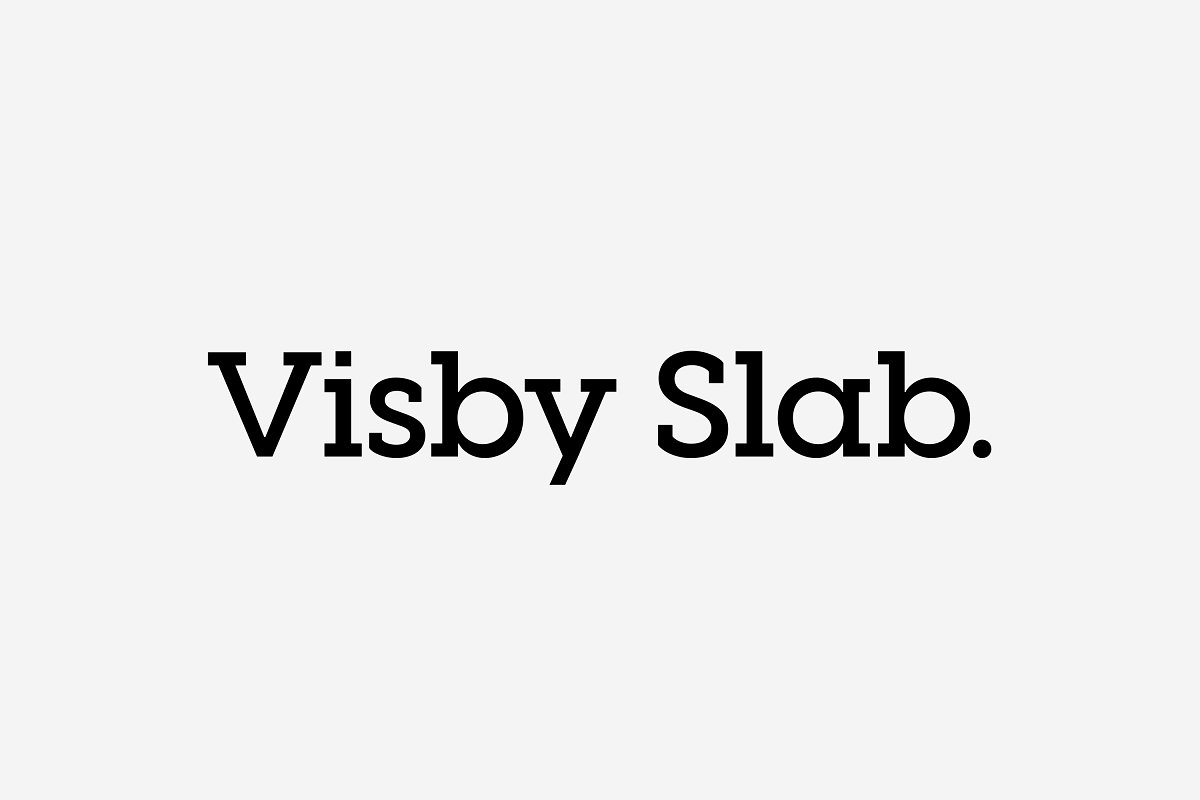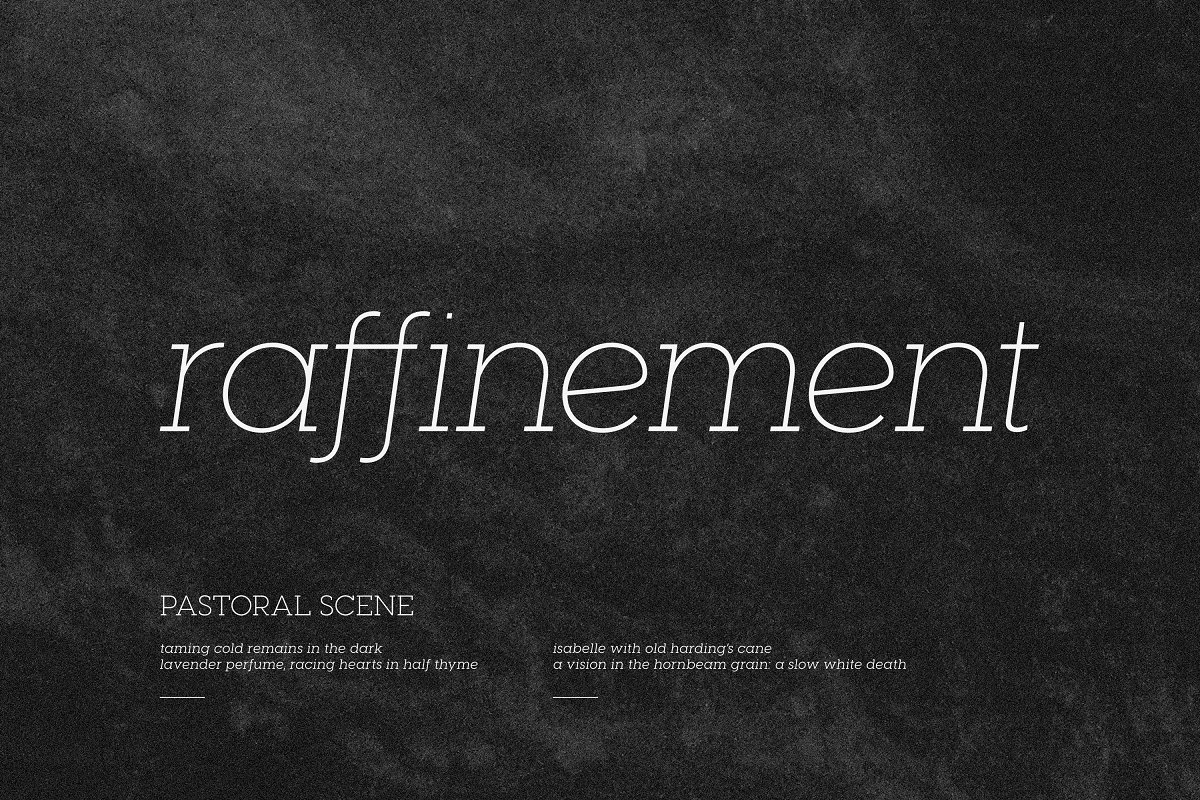
About the Visby Slab CF geometric slab serif Font
Visby Slab is a geometric slab serif built on the popular Visby font family, Fun to use and delightfully expressive, Visby Slab is vibrant and strong in all of its eight weights, and features true italics and wide language support, Excellent for headlines, captions, and just about everything in between, Eight weights and true italicsExtensive Latin script supportOpenType featuresFree updates and feature additionsIf you have any questions about licensing, need help with a typeface, or have a feature to request, contact me at connary